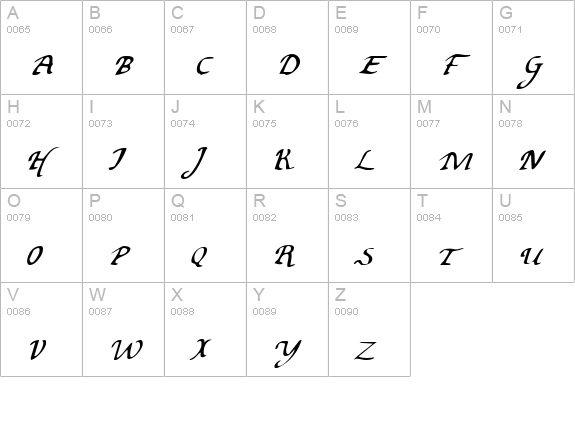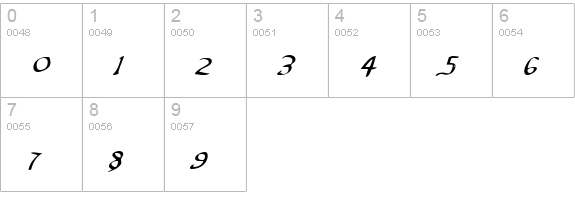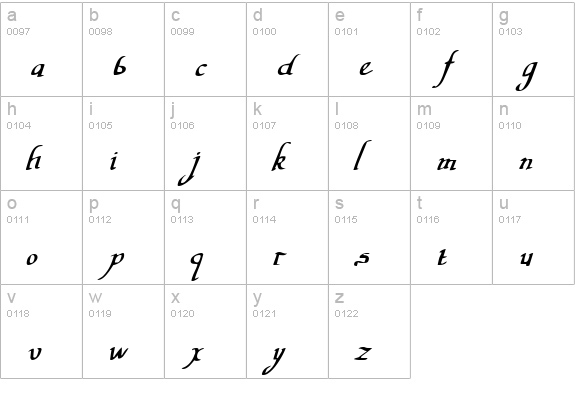
Valley Forge Italic is a distinctive, italic variant in the Valley typeface family \xE2\x80\x94 well suited to design and typography projects.
Valley Forge Italic font exudes elegance and sophistication with its sleek, italicized design. Its flowing lines and gentle curves provide a sense of grace and style to any project. Perfect for adding a touch of class to invitations, logos, and branding materials, this font is a versatile choice for both print and digital designs. The best part? Valley Forge Italic font is available for free download at FontsMarket.com. Take advantage of this opportunity to enhance your projects with this beautiful and timeless font. Elevate your designs with Valley Forge Italic and make a lasting impression on your audience.